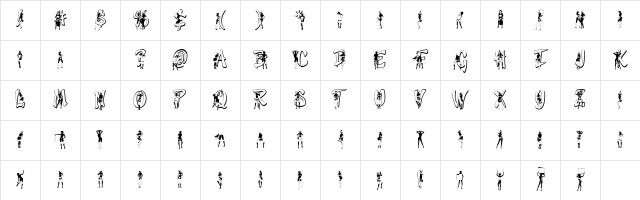
CCGirlsGirlsGirls Naughty Free Font
CCGirlsGirlsGirls Naughty
Style: Naughty
Design Context for CCGirlsGirlsGirls
CCGirlsGirlsGirls is a composed and adaptable typeface that performs quietly and consistently across a wide range of design contexts.